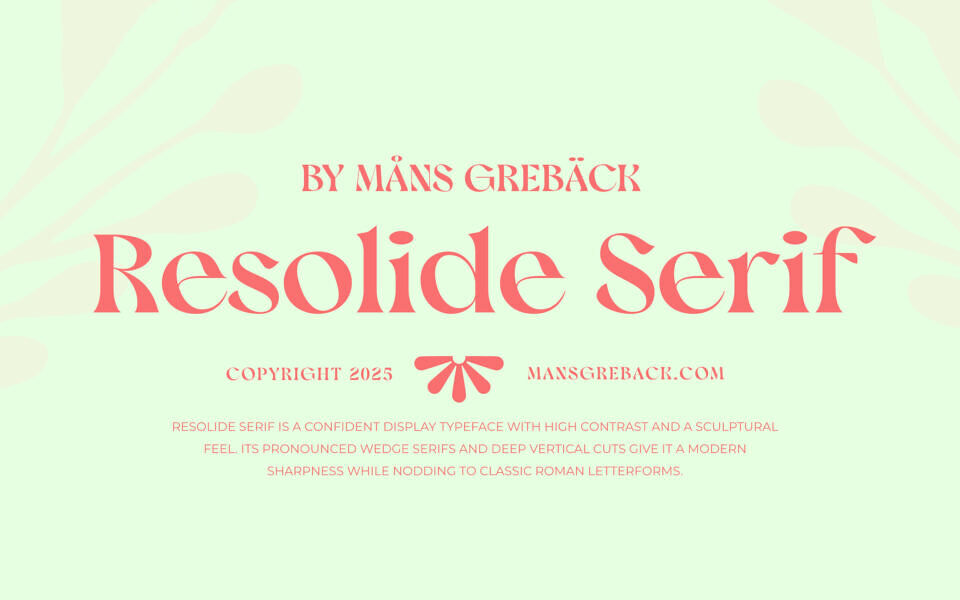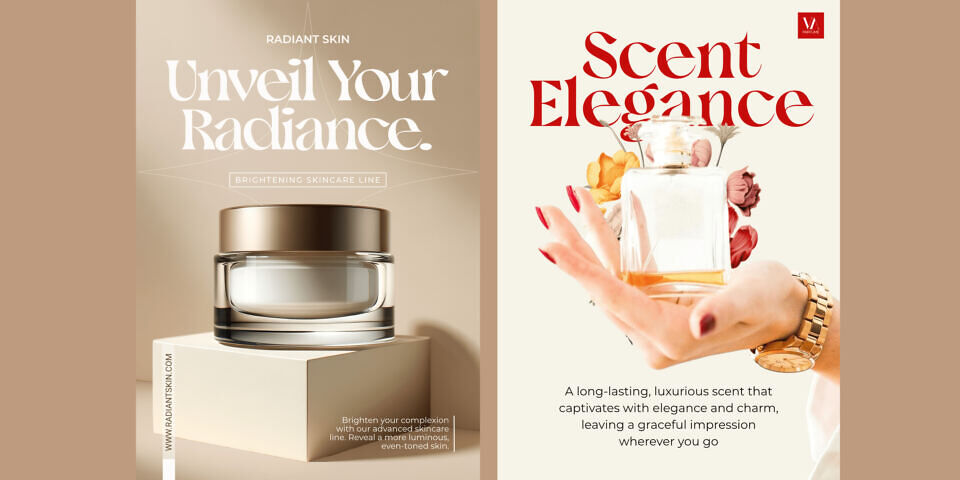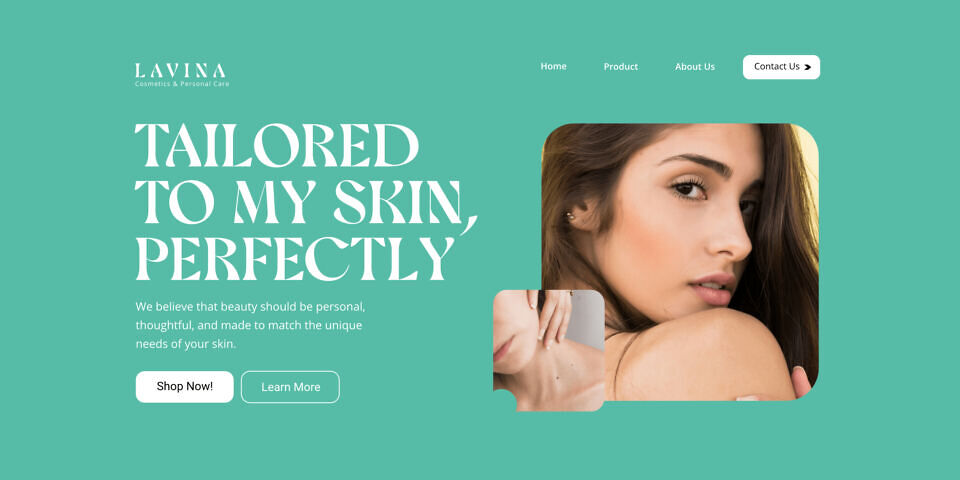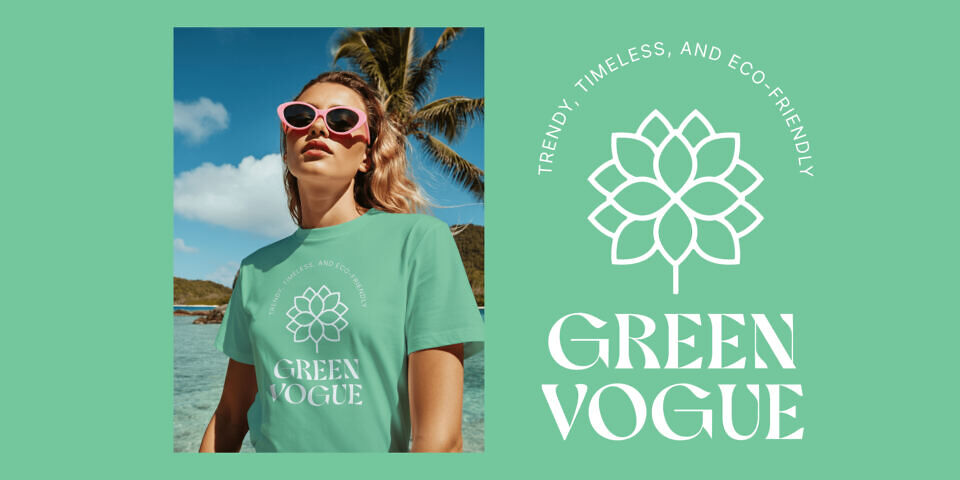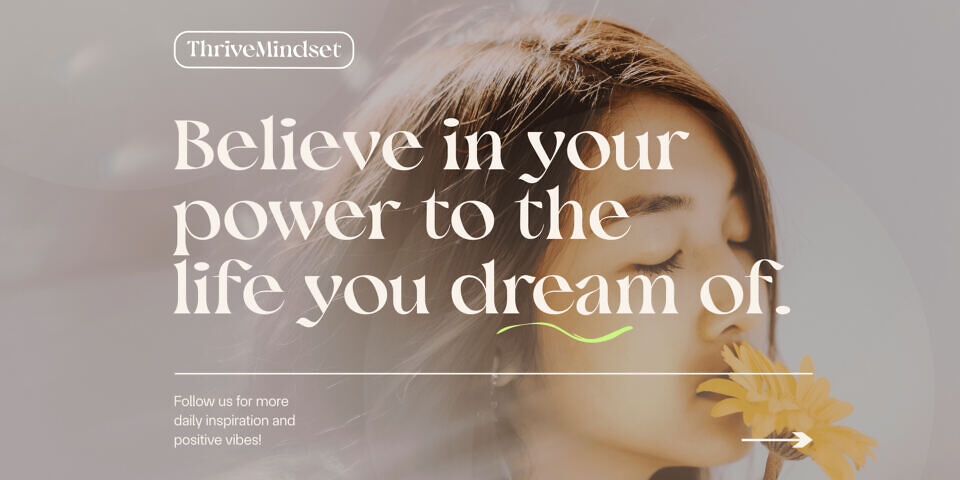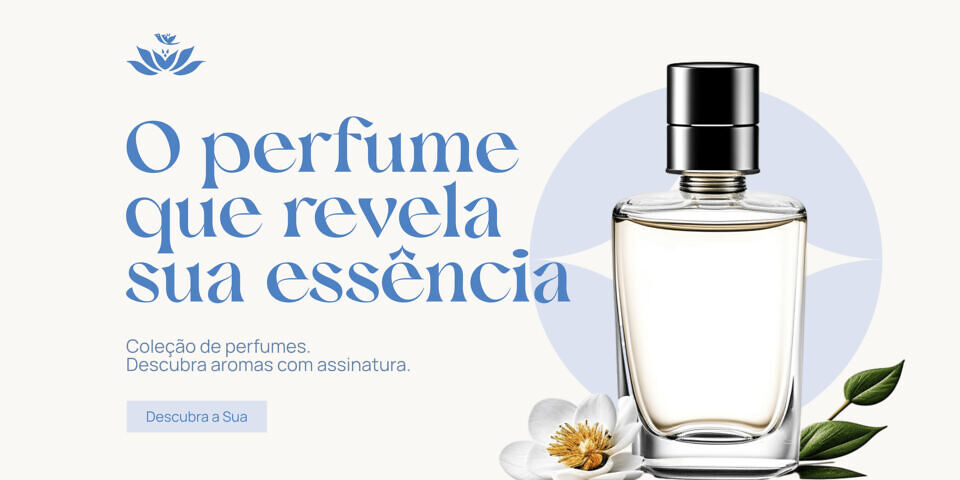
Resolide Serif Font
Resolide Serif is a confident display typeface with high contrast and a sculptural feel. Its pronounced wedge serifs and deep vertical cuts give it a modern sharpness while nodding to classic Roman letterforms. The rhythm of its forms dances between shadow and light, creating a dramatic interplay especially in large sizes.
The lowercase is designed with elegance and precision, complementing the bold geometry of the capitals. Whether used in branding or on a book cover, Resolide Serif stands with poise and distinction.